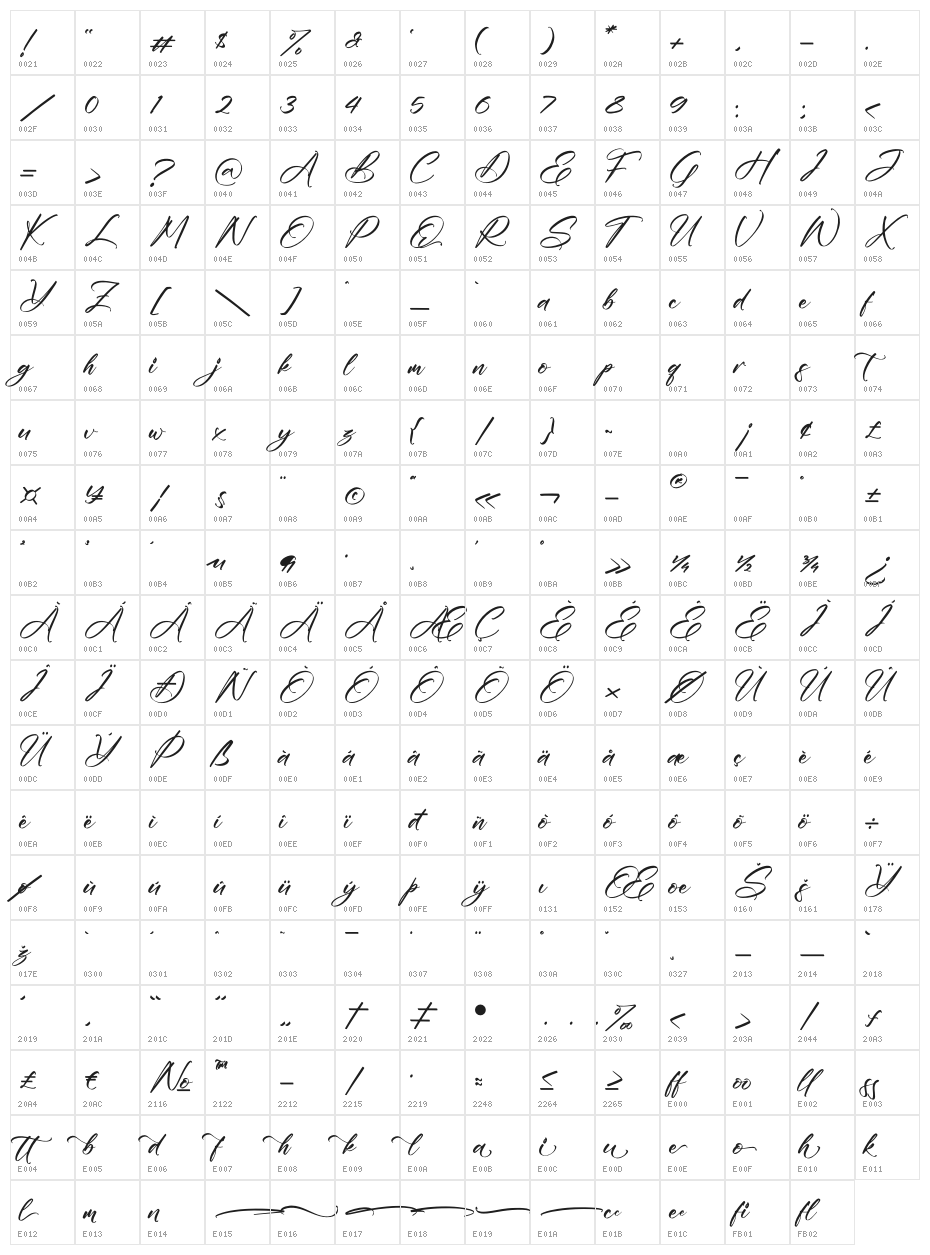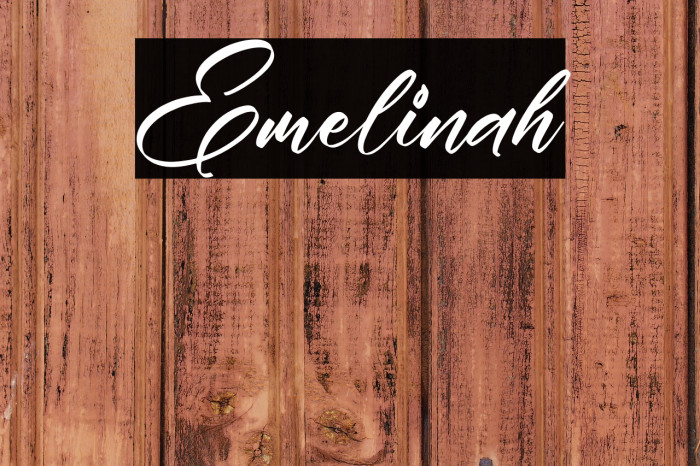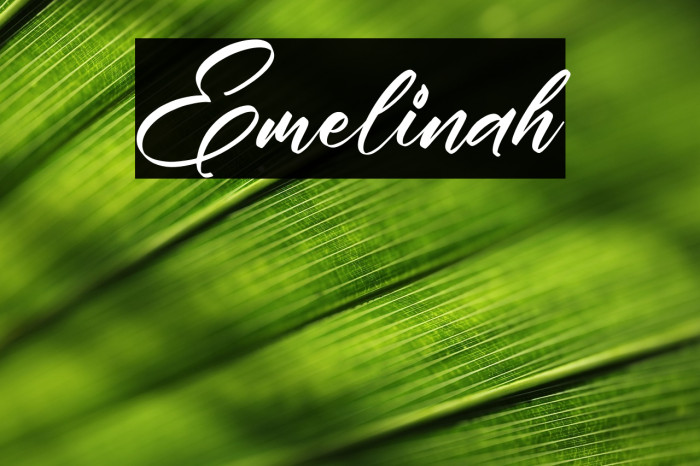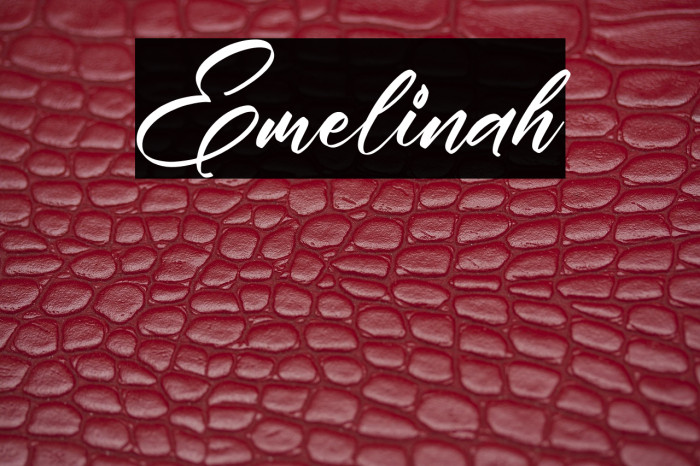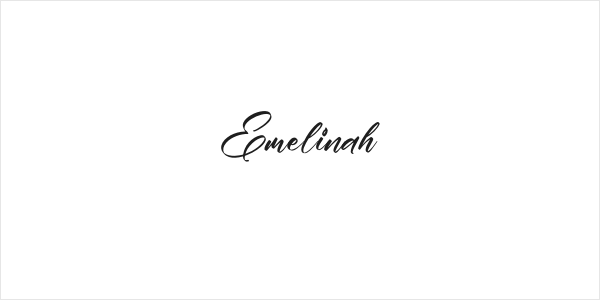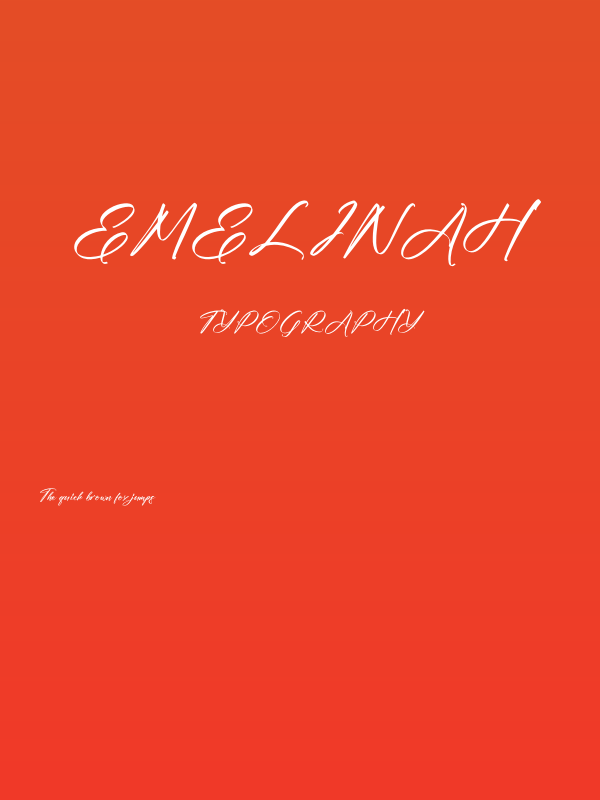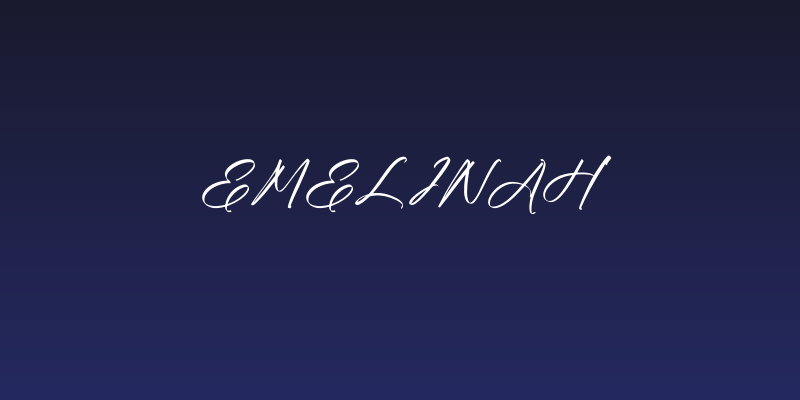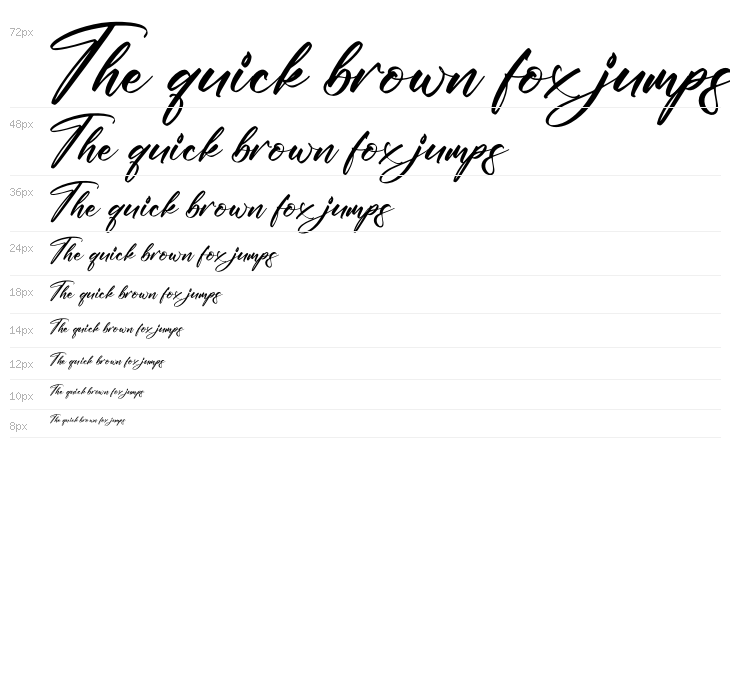
Emelinah Font
Emelinah Description
A flowing, elegant script font with a handwritten style, featuring high contrast and smooth curves.
| Overall Style | Elegant, Decorative |
| Proposed Projects | Wedding invitations, greeting cards, elegant branding. |